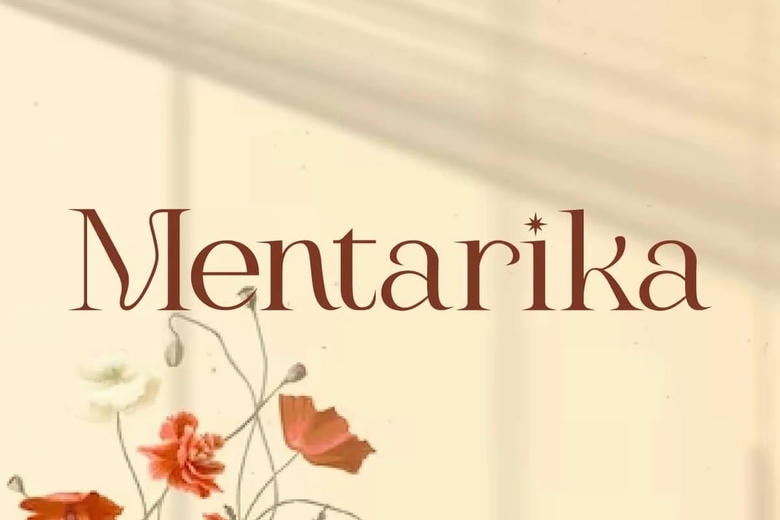
Mentarika Font
Mentarika is a contemporer aesthetic serif display font ensuring the best quality, different from many other options on the market. This will suits perfectly to blogs, book covers, greeting cards, headers, invitations, labels, logos, magazines, free psd mock up template packaging, quotes, signage, stationery, titles, website and many more.
Mentarika included only the Basic Latin having all 26 Alphabets in both Uppercase and Lowercase, Numeric Characters and some Symbols and Punctuation marks. Derived from a serif base it is a refined and classy looking font with high quality and availability in the market that most of the normal serif fonts do not offer. Especially suitable for artisan, cosmetic, fashion, florist, lifestyle vlogger, restaurant and other industries, skincare, spa & salon, wedding, and more.